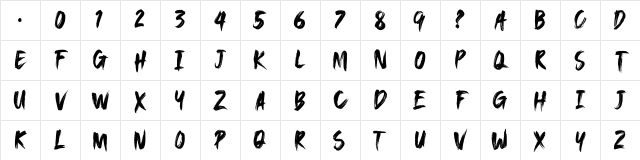
SAEROWS DEMO Regular Free Font
SAEROWS  DEMO Regular
Foundry: Knackpack Studio
Designer: Knackpack Studio
Design Context for SAEROWS DEMO
SAEROWS DEMO is a composed and adaptable typeface that performs quietly and consistently across a wide range of design contexts.